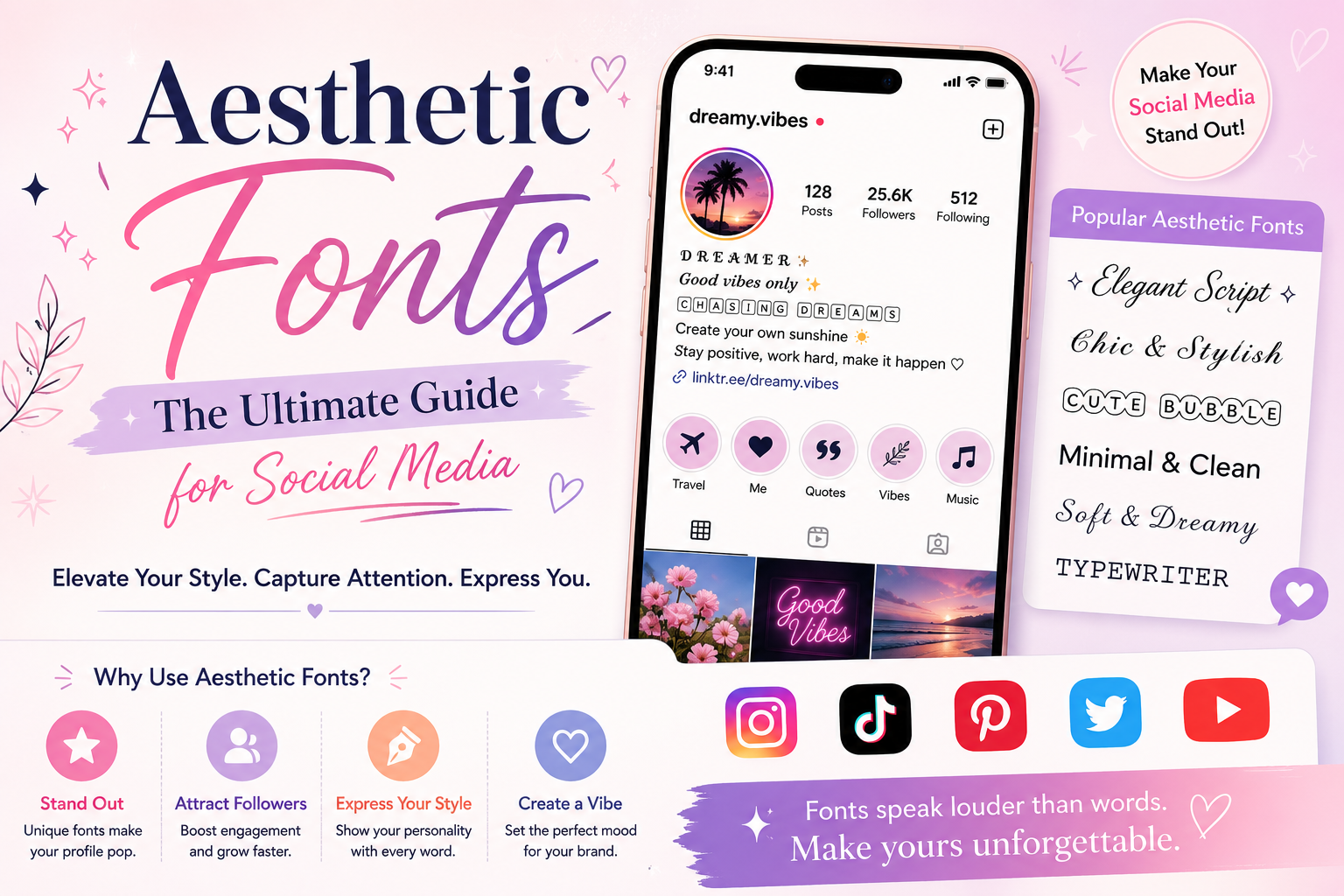
Aesthetic Fonts The Ultimate Guide for Social Media have become a powerful trend in modern digital communication, especially across social media platforms. They help transform simple text into visually appealing and expressive styles that instantly grab attention.
Aesthetic Fonts The Ultimate Guide for Social Media is designed to help you understand how these creative typefaces work and how they can enhance your online presence. From Instagram bios to captions and branding, Aesthetic Fonts The Ultimate Guide for Social Media explores everything you need to create stylish, eye-catching content that stands out in a crowded digital world.
Aesthetic Fonts The Ultimate Guide for Social Media
Aesthetic Fonts The Ultimate Guide for Social Media explores how stylish and decorative typography can transform the way content looks and feels online. These fonts are widely used on platforms like Instagram, TikTok, and Facebook to make bios, captions, and posts more engaging and visually appealing.
By understanding Aesthetic Fonts The Ultimate Guide for Social Media, users can learn how to choose the right font styles to match their personal or brand identity. It also highlights how aesthetic typography helps improve attention, creativity, and overall social media presentation.
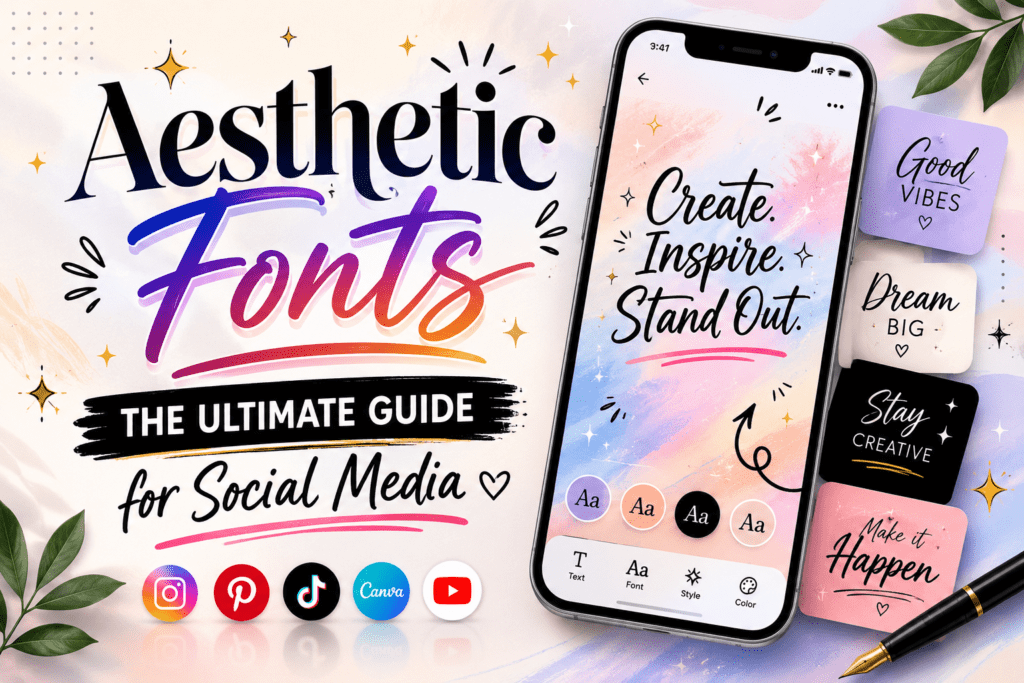
Aesthetic Fonts for Graphic Design
Aesthetic Fonts for Graphic Design play a key role in creating visually appealing and modern designs. They help designers add personality, mood, and creativity to their work, making each project more engaging and unique.
Using Aesthetic Fonts for Graphic Design allows you to enhance branding, posters, and digital content with stylish typography. These fonts help communicate messages more effectively while maintaining a strong visual impact.